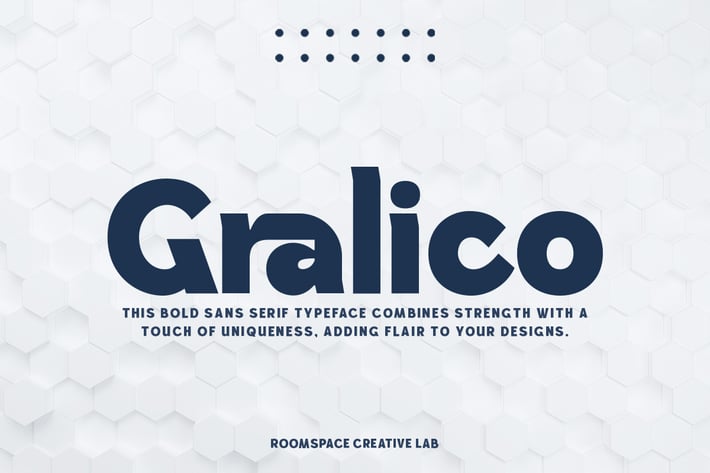
Gralico Modern Sans Logo Font
Gralico is a modern sans serif typeface that blends geometric precision with a subtle contrast, creating a clean, minimalistic, and highly legible design. Inspired by grotesque typography, this font is perfect for branding, logotypes, product packaging, and typographic compositions.
With its bold yet refined structure, Gralico excels in display applications, headlines, and modern advertising. Its versatile and professional aesthetic makes it an excellent choice for brand identities, editorial layouts, and digital or print designs. Whether you're crafting a high-impact logotype, a sleek product display, or a bold headline, Gralico delivers a contemporary and sophisticated look.
Designed for both clarity and style, this modern grotesque sans serif ensures a strong visual presence, making it a go-to font for projects that demand elegance, readability, and timeless appeal